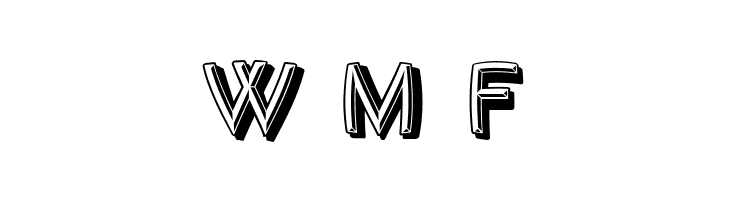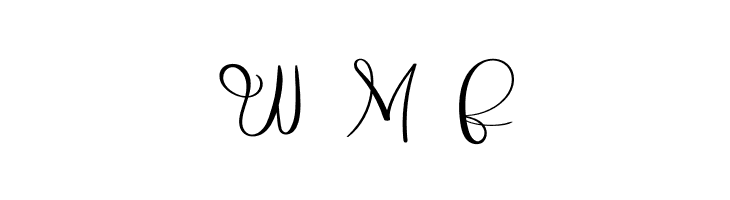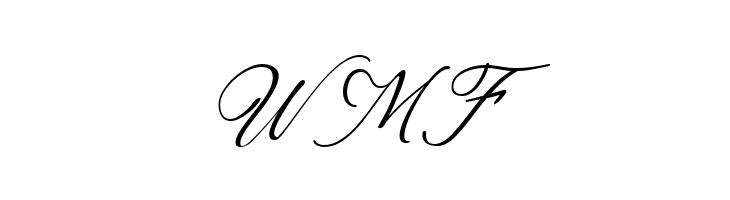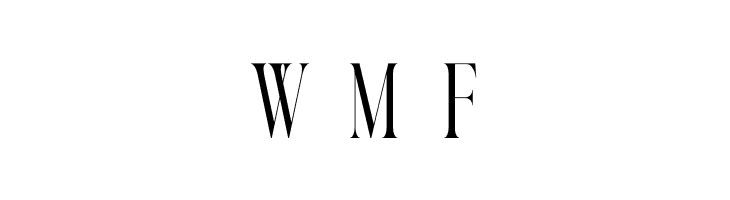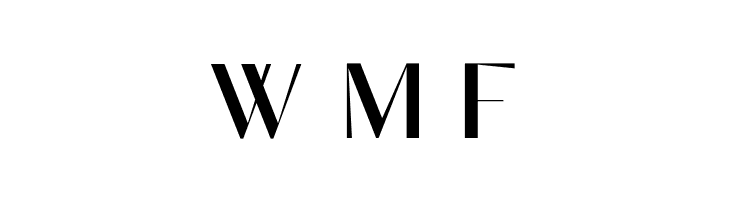
PJ Masks Bold Font
A bold, rounded font with smooth curves and a friendly appearance.
Luxi Serif Regular Font
A classic serif typeface with elegant, balanced strokes and high readability.
Luxi Sans Regular Font
A clean, modern sans-serif typeface with balanced proportions and excellent readability.
Luxi Serif Bold Font
A bold serif font with strong, elegant strokes and well-defined serifs.
Luxi Mono Bold Font
A bold, monospaced font with a modern yet classic style, ideal for coding and headings.
Luxi Sans Bold Font
A bold, modern sans-serif font with clean lines and excellent readability.
De Luxe Next Font
A modern, geometric sans-serif font with uniform strokes and clean lines.
De Luxe Next Bold Font
Luxembourg Font
An intricate Blackletter-style font with sharp, angular lines and decorative serifs.
Luxerie Font
A modern sans-serif font with clean lines and a minimalist style.
Luxo Font
A whimsical and playful font with exaggerated curves and dynamic strokes.
luxurious sexy Font
A playful and whimsical font with bold, rounded characters and exaggerated curves.
Lux Contra Tenebras Condensed Font
A bold, gothic blackletter font with intricate detailing.
Luxi Serif Bold Oblique Font
A bold, oblique serif font with a classic yet dynamic style.
Luxi Sans Bold Oblique Font
A bold, oblique sans-serif font with a modern and dynamic style.
De Luxe Hollow Font
A modern, hollow geometric font with clean lines and balanced proportions.
De Luxe Bold Font
A bold, modern sans-serif font with clear, evenly spaced characters.
Eveagita Luxury Demo Version Font
A bold, elegant font with elongated, narrow characters and sharp angles.
Redstock Script DEMO Font